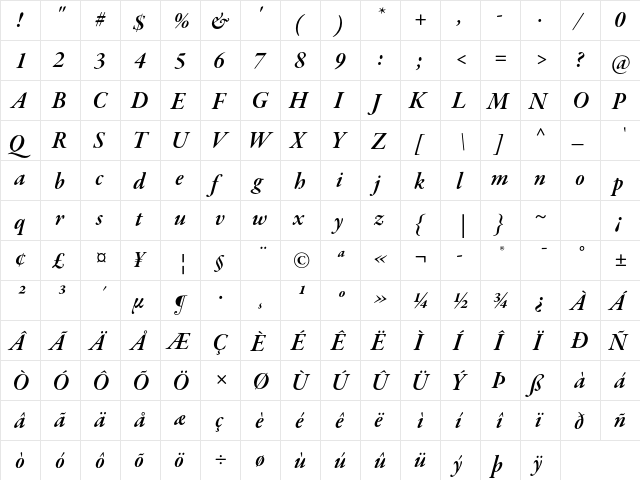
Garamond Premier Pro Semibold Italic Subhead Font Preview
| Designer | Robert Slimbach |
Design Context for Garamond Premier Pro Typeface
Garamond Premier Pro is a composed and adaptable typeface that performs quietly and consistently across a wide range of design contexts. Its italic angle brings a sense of urgency and motion to the letterforms. The heavy weight commands attention and anchors typographic hierarchies.
Pro Tip: Try Garamond Premier Pro for annotation and caption copy alongside an upright companion — the contrast in angle creates a dynamic but ordered typographic system.